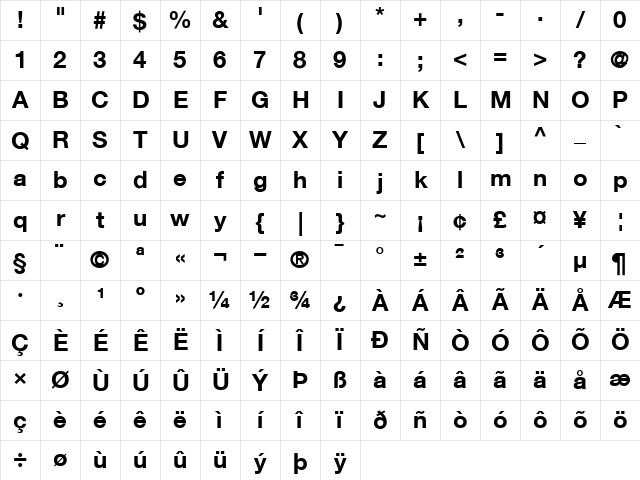
Complete Helvetica75 Bold glyph index. Displaying only characters natively supported by Helvetica75 Bold font.
Helvetica75 is a composed and adaptable typeface that performs quietly and consistently across a wide range of design contexts. Its bold stroke weight gives it real presence on the page.